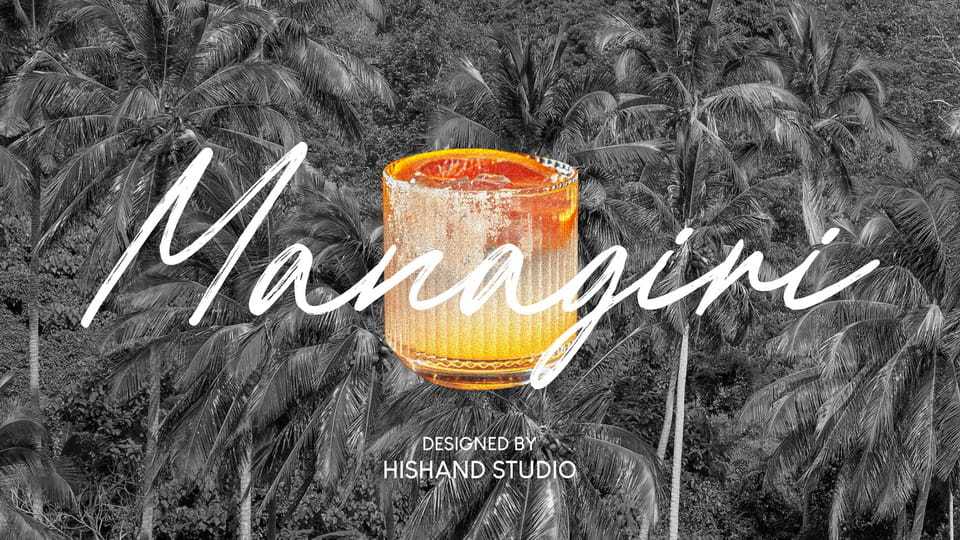
Download Managiri font, a script brush typeface that captures the spirit of tropical elegance with a relaxed, artistic touch, designed with flowing strokes and natural brush textures.